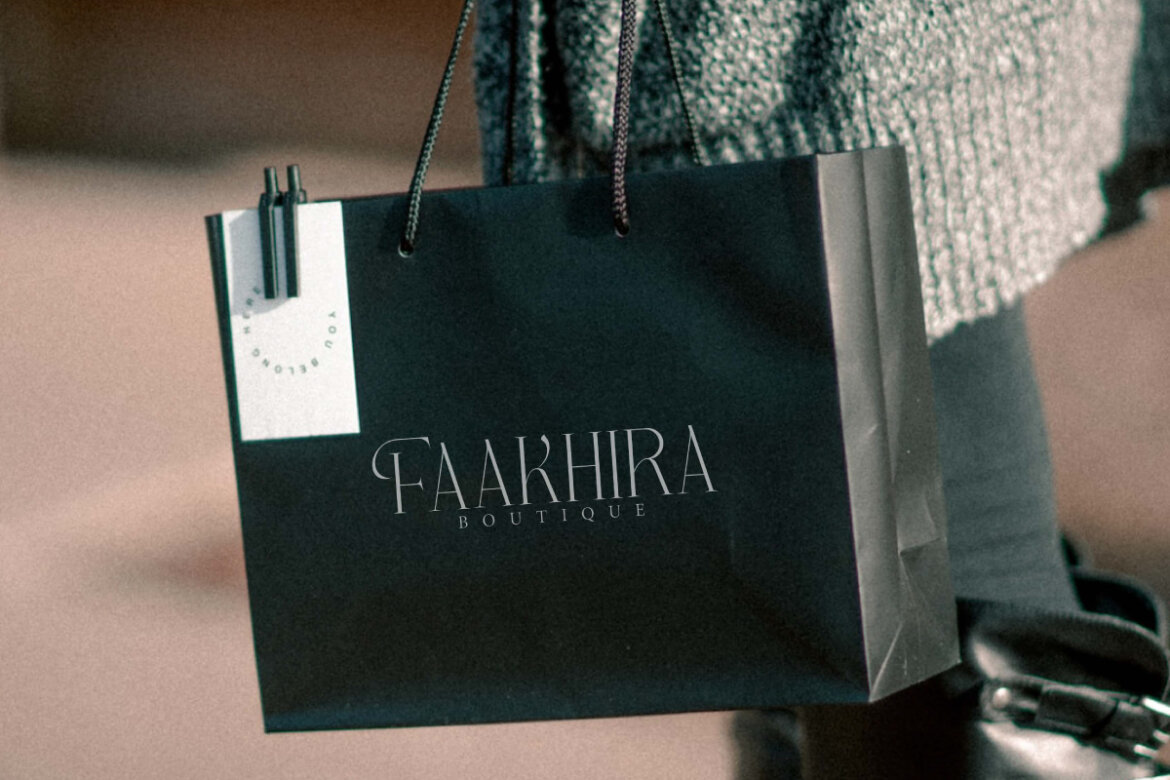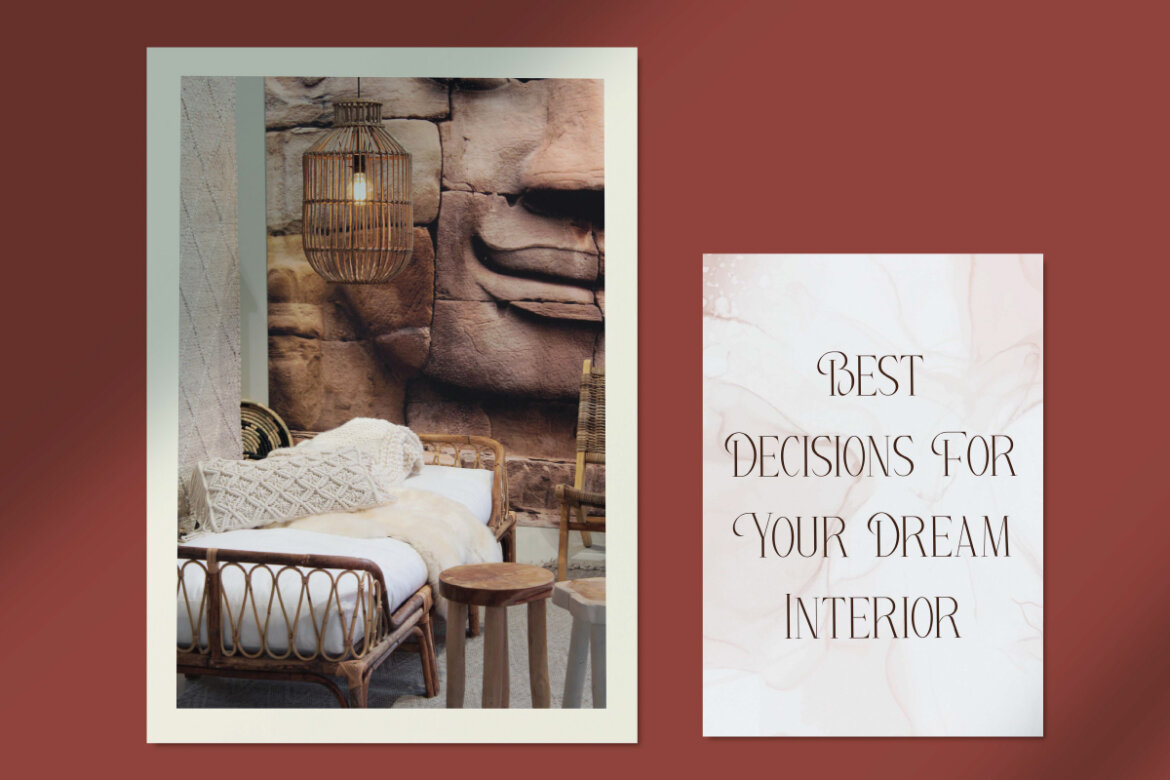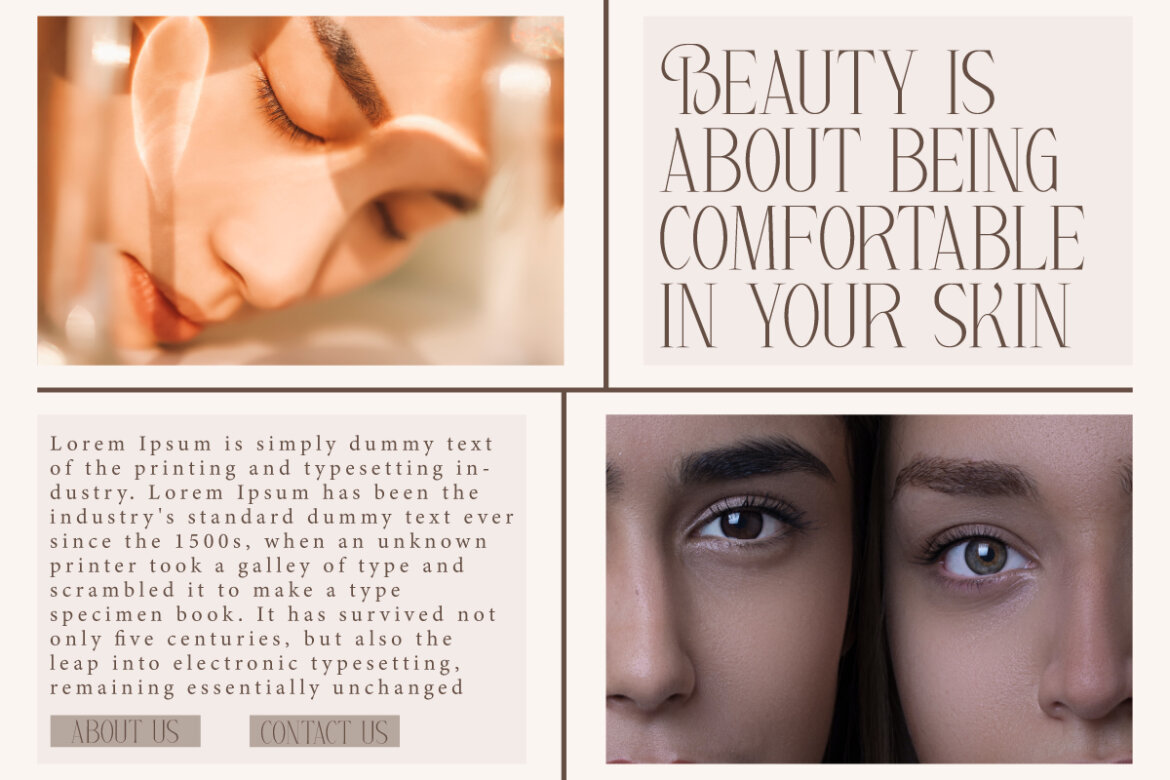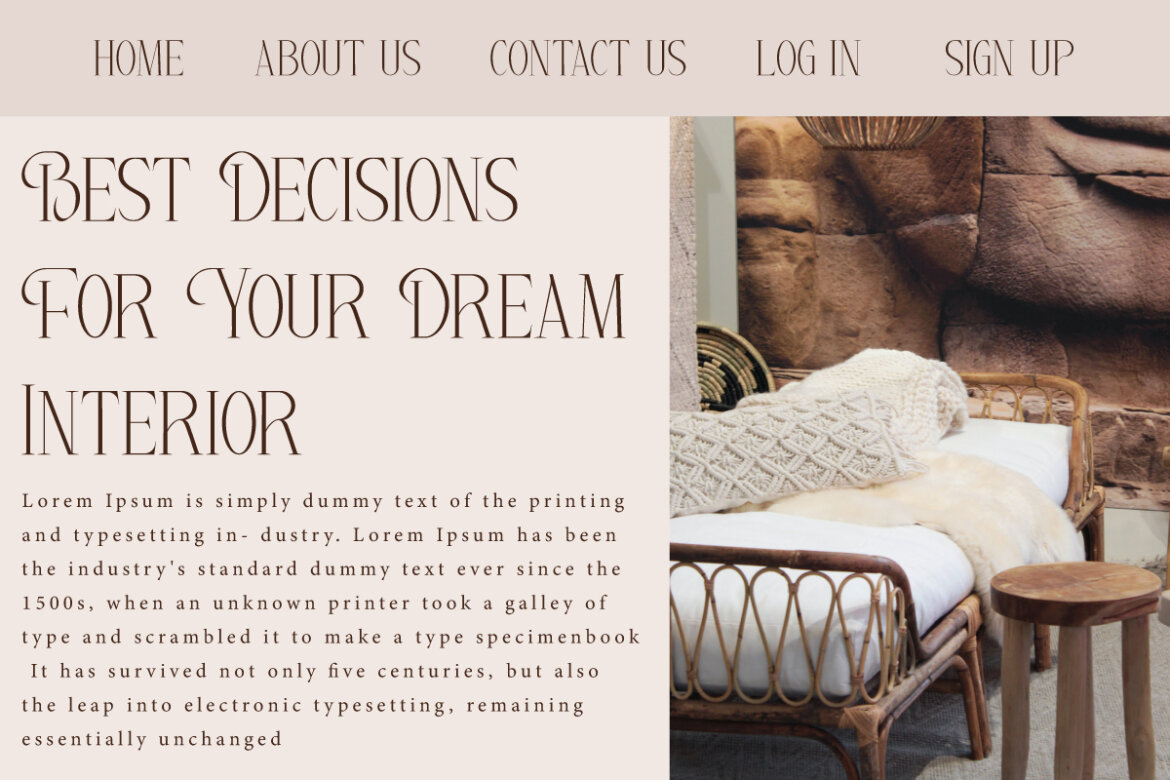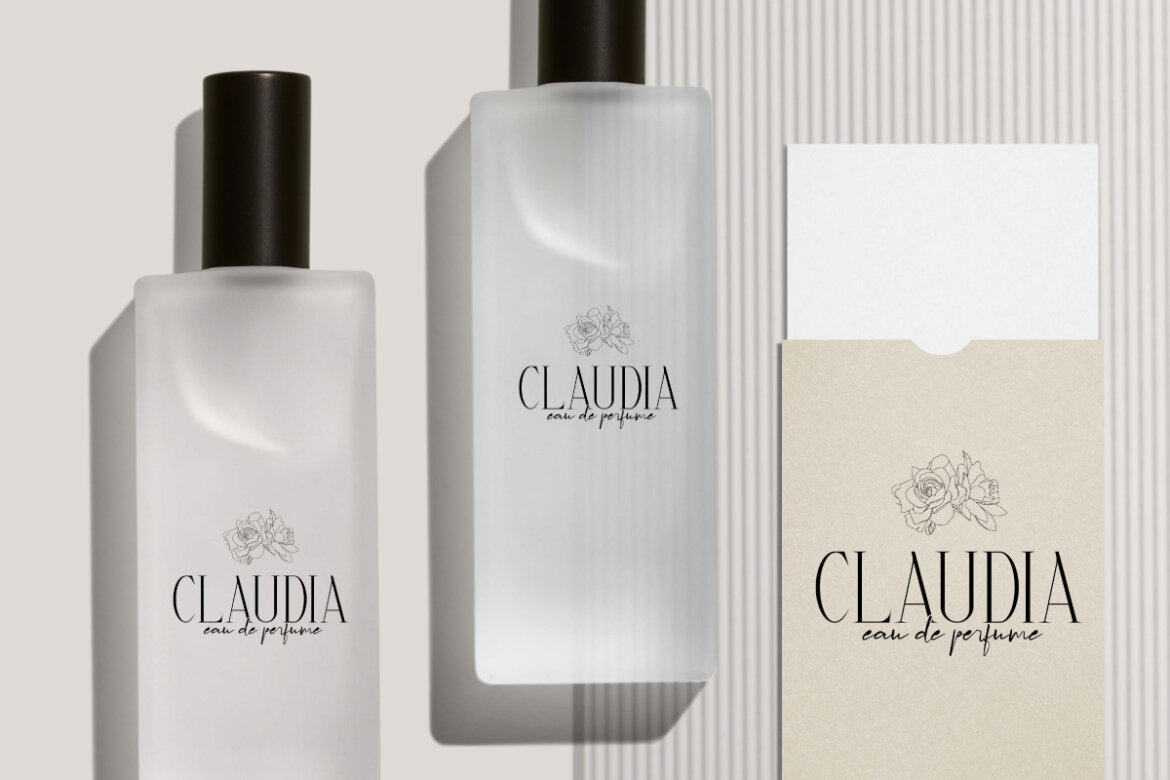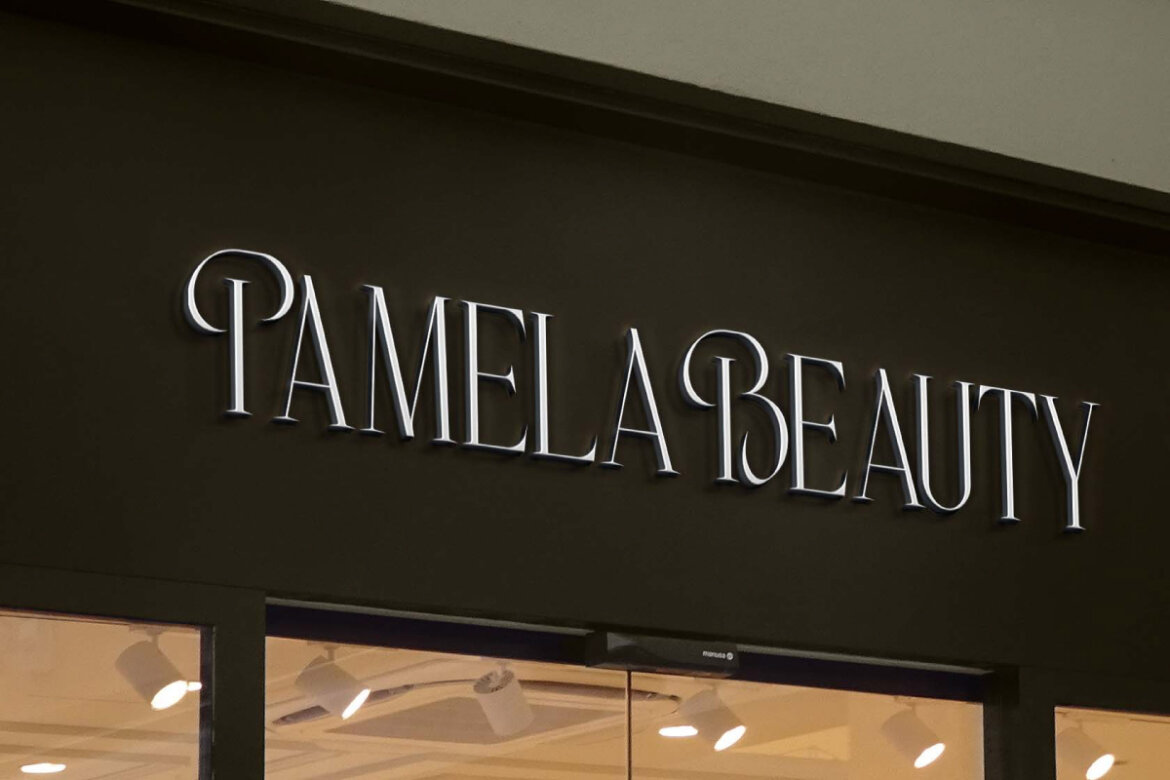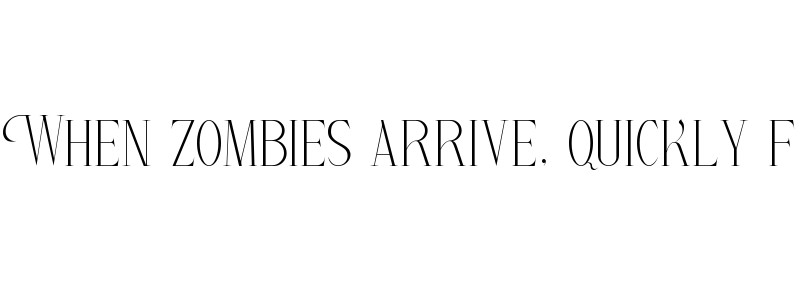
Pamela Beauty Font
Pamela Beauty
Pamela Beauty Font is a majestic serif display font with classic characters and distinctive curves that make it look so beautiful. Perfect for blogs, branding, brochure, covers, headline, invitation, labels, logos, magazine catalog, mockup, poster, product packaging, quotes, screen print, signage, stationery, template, title, website and many more.
Pamela Beauty Font includes full set of ALL CAPS for Uppercase and Lowercase Basic Characters with a slight difference, Numbers, Punctuation and Symbols. This font with a modern luxurious feel that fits perfectly to produce an aesthetic and quite feminine letter shape will be suitable for use for advertising, beauty clinic, boutique, cosmetic, fashion, florist, home furniture, interior design, skincare, spa salon, etc.